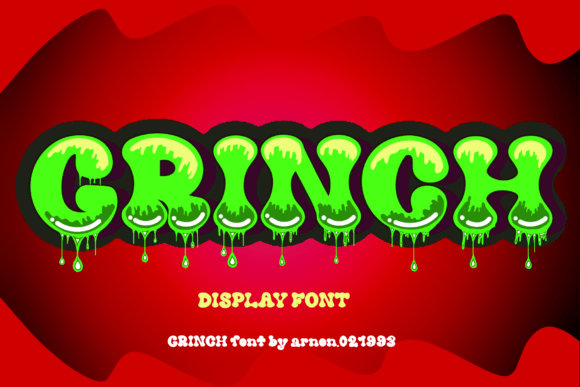
Bring a Smile to Your Designs with Grinch Font
Who doesn’t love the Grinch’s grumpy yet lovable character? As a designer, you’ve probably found yourself in a situation where you’re searching for the perfect font to match the playful and whimsical tone of your project. You stare blankly at your screen, scrolling through endless options until suddenly, a smile creeps onto your face as you stumble upon the Grinch Font.
Grinch Font is a delightful display font that embodies the essence of playfulness and authenticity. With its chunky, colorful letters, it’s the perfect choice for any children’s activity or school project. Whether you’re designing a logo, poster, or even a birthday invitation, the Grinch Font is sure to bring a touch of magic to your designs.
Adding the Grinch Font to your designs is like injecting a breath of fresh air into your creative process. It’s a valuable addition to any designer’s toolkit, capable of transforming even the most mundane projects into something truly special. So why settle for ordinary when you can have extraordinary with the Grinch Font?
Key Features of Grinch Font
- Font Family: Grinch Font is a sans-serif typeface designed specifically for digital use.
- Unique Characteristics: Grinch Font features a distinctive, bold, and playful design, with a unique character set that includes a wide range of symbols and icons.
Grinch Font Review
Overall, the Grinch Font is a unique and quirky addition to any design project. ✨ I appreciate its bold, playful personality, which can add a fun touch to headings and titles. The font’s irregular shapes and curves give it a hand-drawn feel that’s perfect for creative and whimsical projects.
The font’s bold weight options make it ideal for titles and headings, and the font’s high x-height makes it easy to read even at small sizes. ✨ However, I do find the font’s italics to be somewhat inconsistent, with some letters not quite matching the regular style.
Here are some specific strengths and weaknesses of the Grinch Font:
- Unique and playful personality ✨
- Bold weight options ideal for titles and headings ✨
- High x-height makes it easy to read at small sizes ✨
- Consistent spacing and kerning ✨
- Italic styles can be inconsistent ⚠️
- May not be suitable for formal or professional projects ⚠️
Overall, the Grinch Font is a fun and creative addition to any design project. While it may have some limitations, its unique personality and versatility make it a great choice for the right projects.
Tip: Use the Grinch Font for festive designs, such as holiday cards, party invitations, or social media graphics.
Tip: Use the Grinch Font for creative designs, such as greeting cards, posters, or book covers.
Tip: Use the Grinch Font for presentations, reports, or documents that require a unique and playful touch.
The Grinch Font is ideal for designs that require a fun, playful, and festive touch. Some common use cases include:
- Holiday cards and invitations
- Party decorations and social media graphics
- Children’s books and educational materials